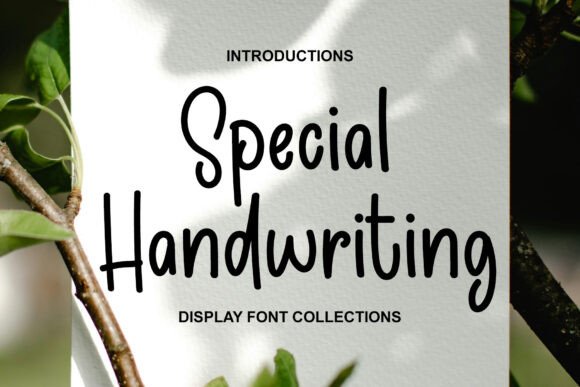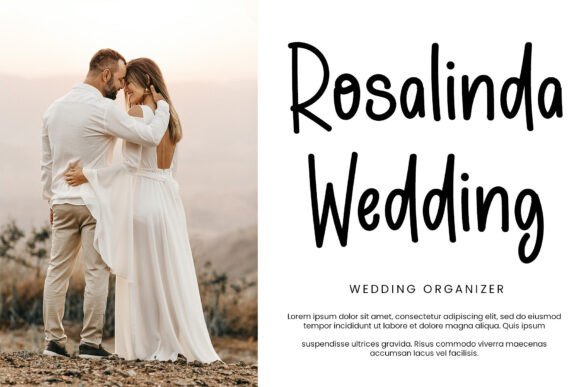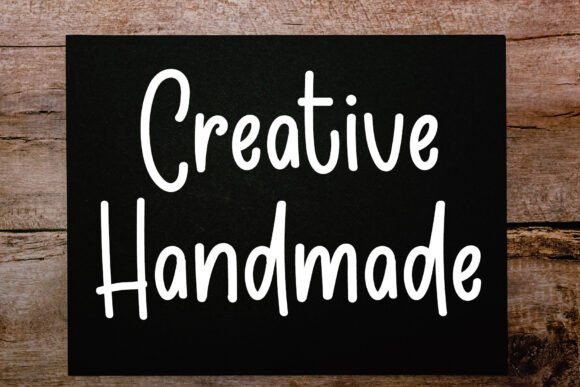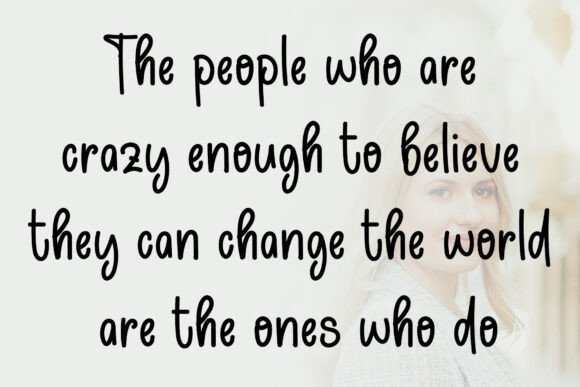
Special Handwriting Font
About the Special Handwriting Font
Elevate your designs with Special Handwriting Font, a font that combines sophistication with readability. Special Handwriting is an elegant and delicate handwritten typeface. This is perfect for your various design needs, such as logos and branding, social media posts, advertisements, business cards, wedding invitations, product design, etc.
Special Handwriting Font Usage Examples
Special Handwriting Font Example